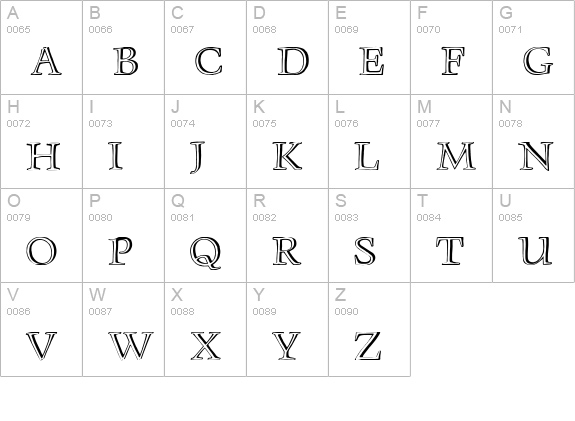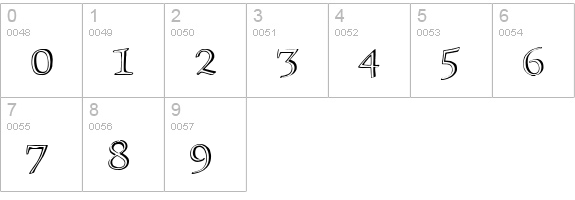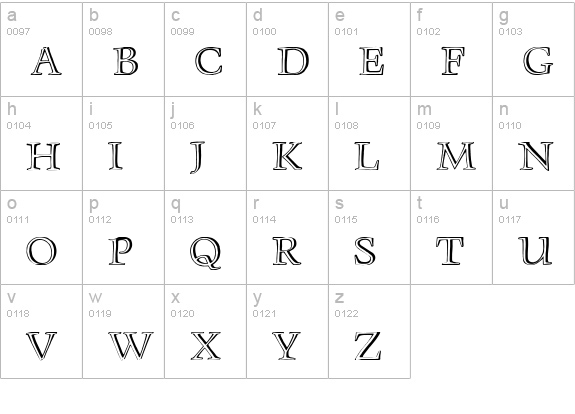
Monument font is a stunning and versatile typeface that exudes elegance and sophistication. With its clean lines and modern aesthetic, Monument font is perfect for a wide range of design projects, from branding to editorial design. The font features a unique combination of sharp angles and soft curves, giving it a distinctive and eye-catching appearance. What makes Monument font even more appealing is that it is completely free to download. Yes, you read that right! You can easily access this beautiful font at FontsMarket.com without spending a dime. So whether you're a professional designer or a hobbyist looking to add a touch of class to your creations, Monument font is the perfect choice. Download it today and elevate your designs to the next level.